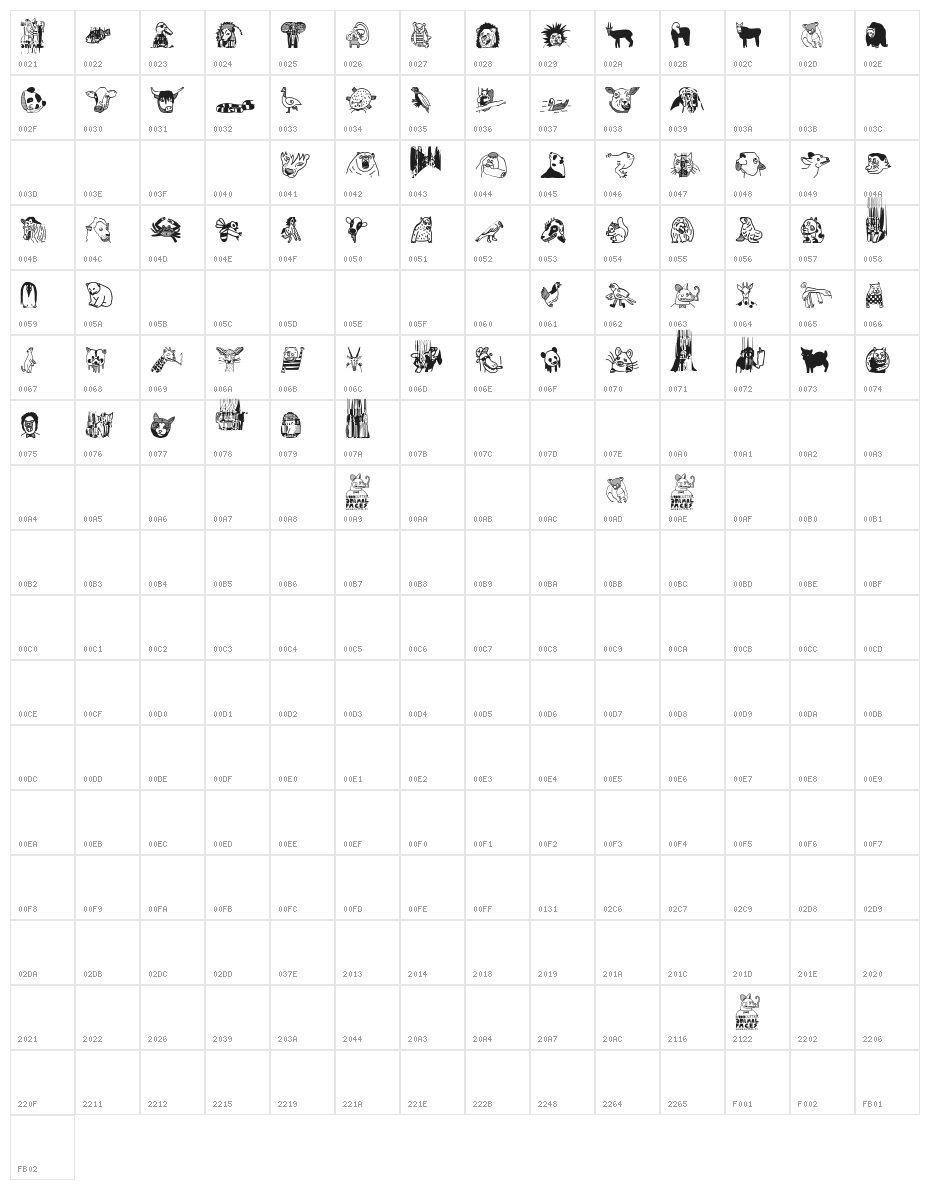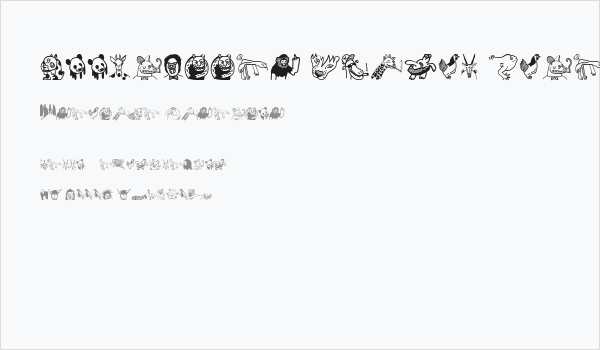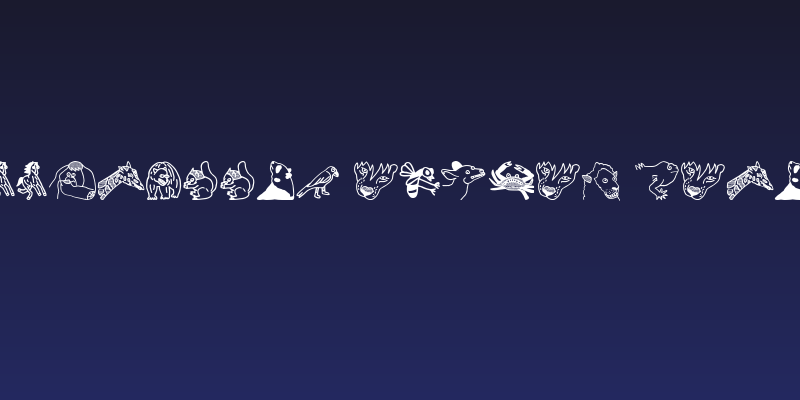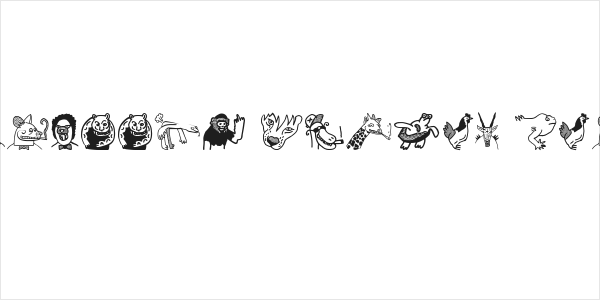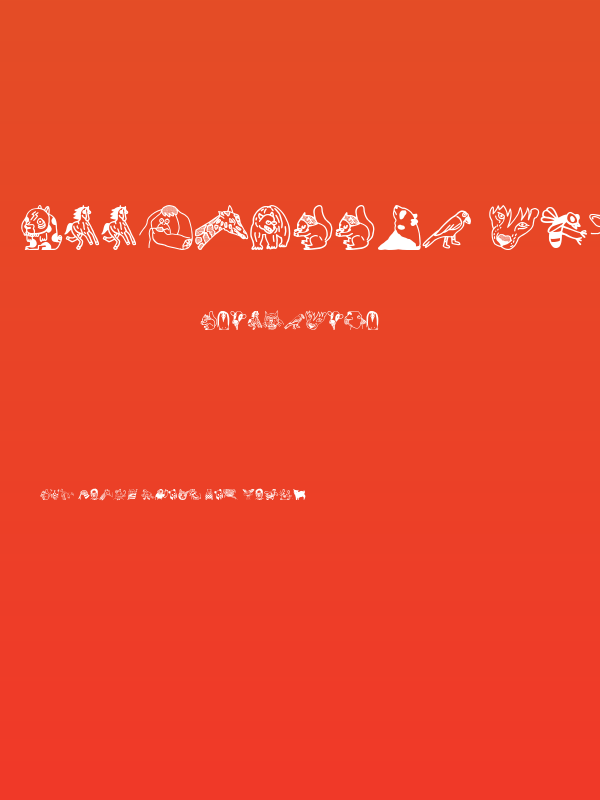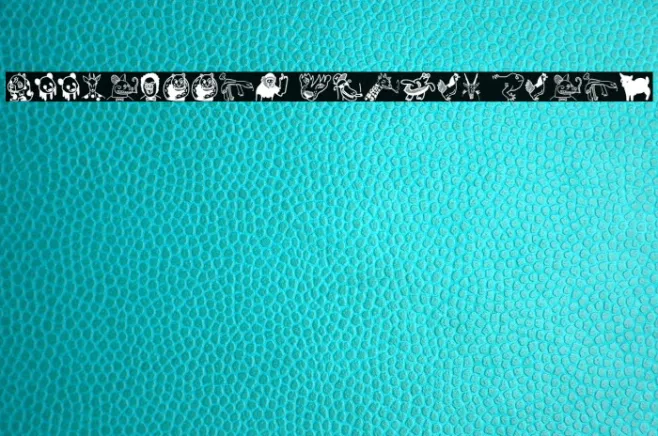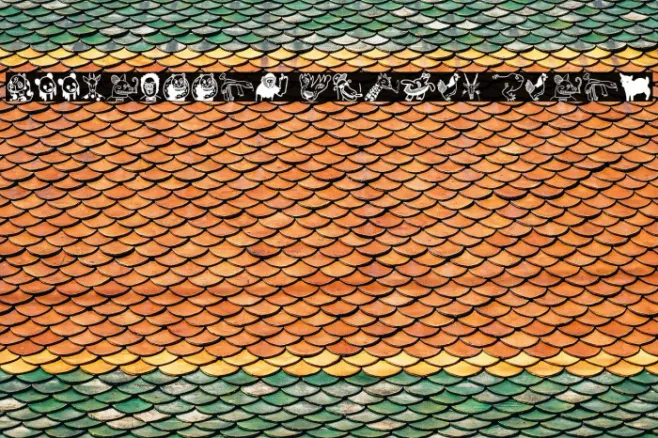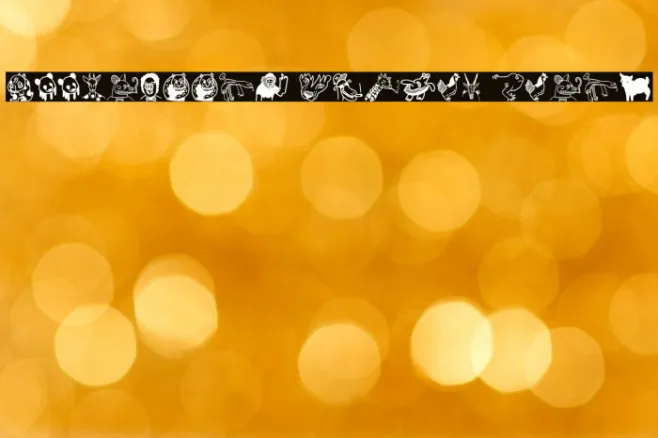
Woodcutter Animal Faces Font
Woodcutter Animal Faces Description
A playful, hand-drawn decorative font where each character is represented by a unique animal face or figure, featuring bold, irregular strokes and whimsical, cartoon-like details. The glyphs are highly illustrative and vary in complexity, with a consistent black-and-white color scheme and a casual, sketchy style.
| Overall Style | Decorative, Playful, Whimsical |
| Use Case | Headlines, Posters, Logos, Themed Events |
| Proposed Projects | Children's books, educational materials, posters, party invitations, branding for kid-focused products, playful packaging. |